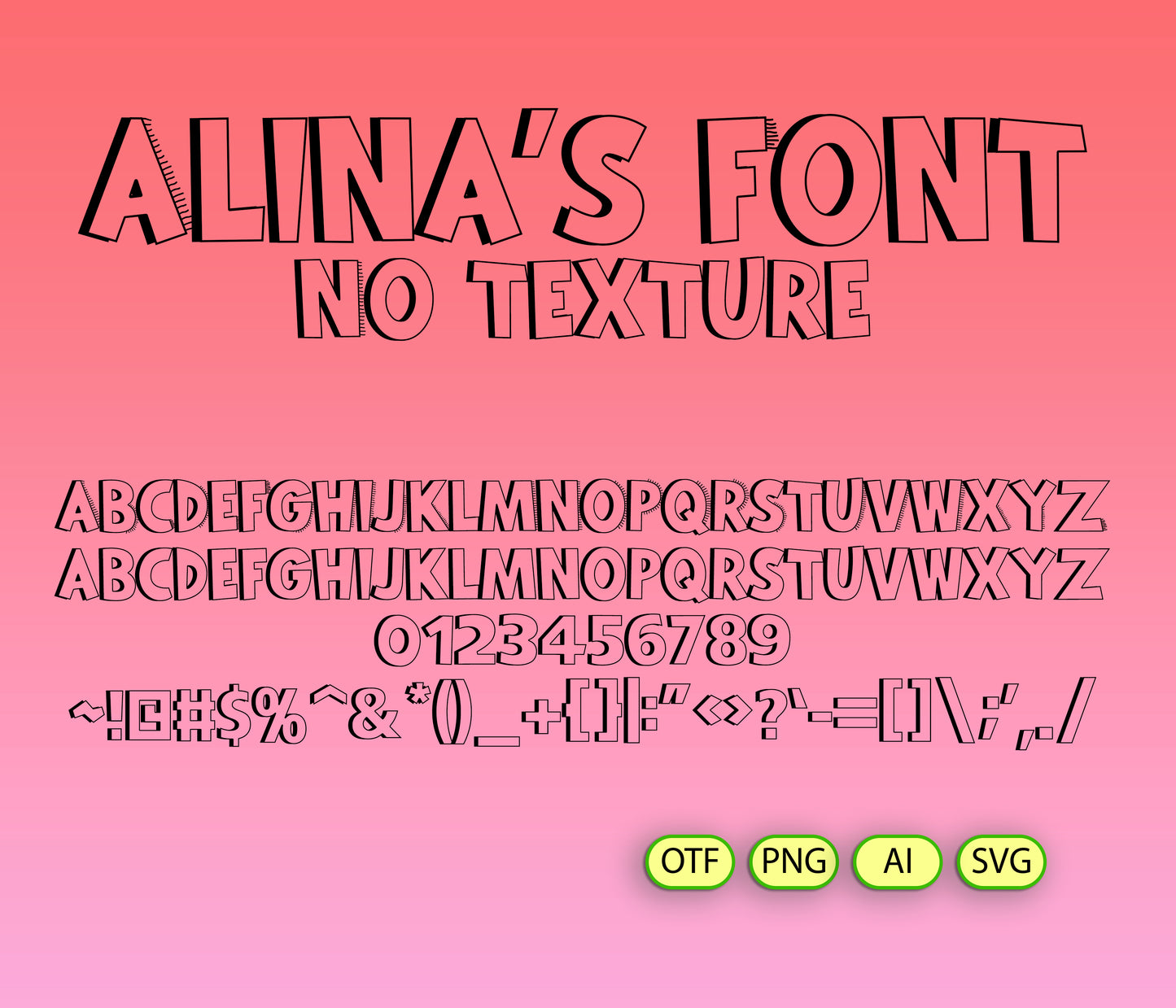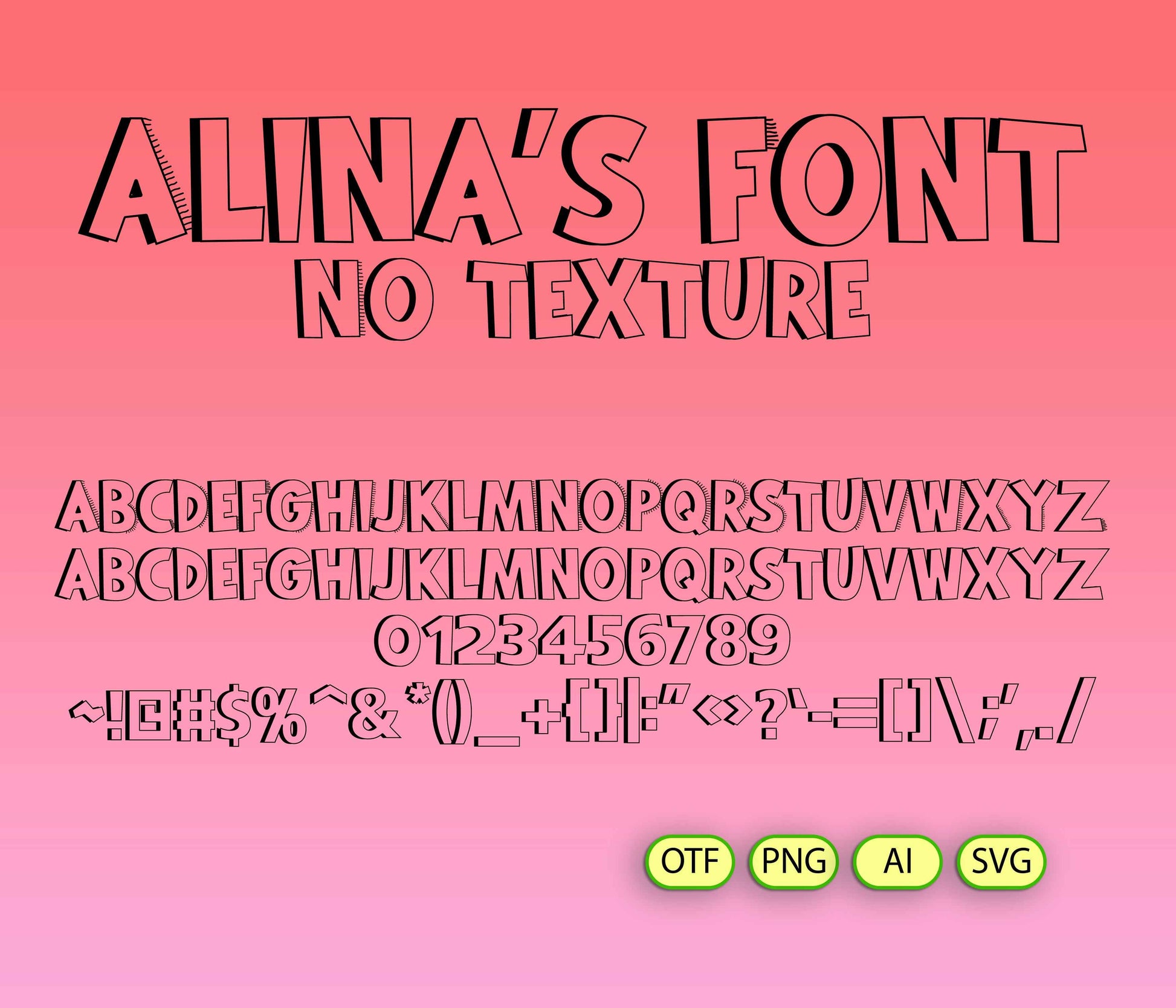
Full House Adventures Font
Step into the hectic world of sibling mayhem with our specially designed font, capturing the essence of growing up in a house packed with personality. Perfect for fans, animators, event organizers, and designers, this font brings the dynamic, fun-loving spirit of family chaos to your projects. Create event invitations, themed merchandise, or digital content with the playful energy of this unforgettable animated crew.
Our Full House Adventures font features lively, expressive characters reflecting the wild dynamics of sibling life. Ideal for:
Our font pays tribute to the chaos of growing up in a packed house, empowering your designs with its playful and dynamic spirit. Whether crafting promotional materials, designing merchandise, or adding a lively touch to personal projects, this font communicates the beloved essence of family adventures. Ready to inject some sibling mayhem into your creations? This font is your key to energetic, impactful design.